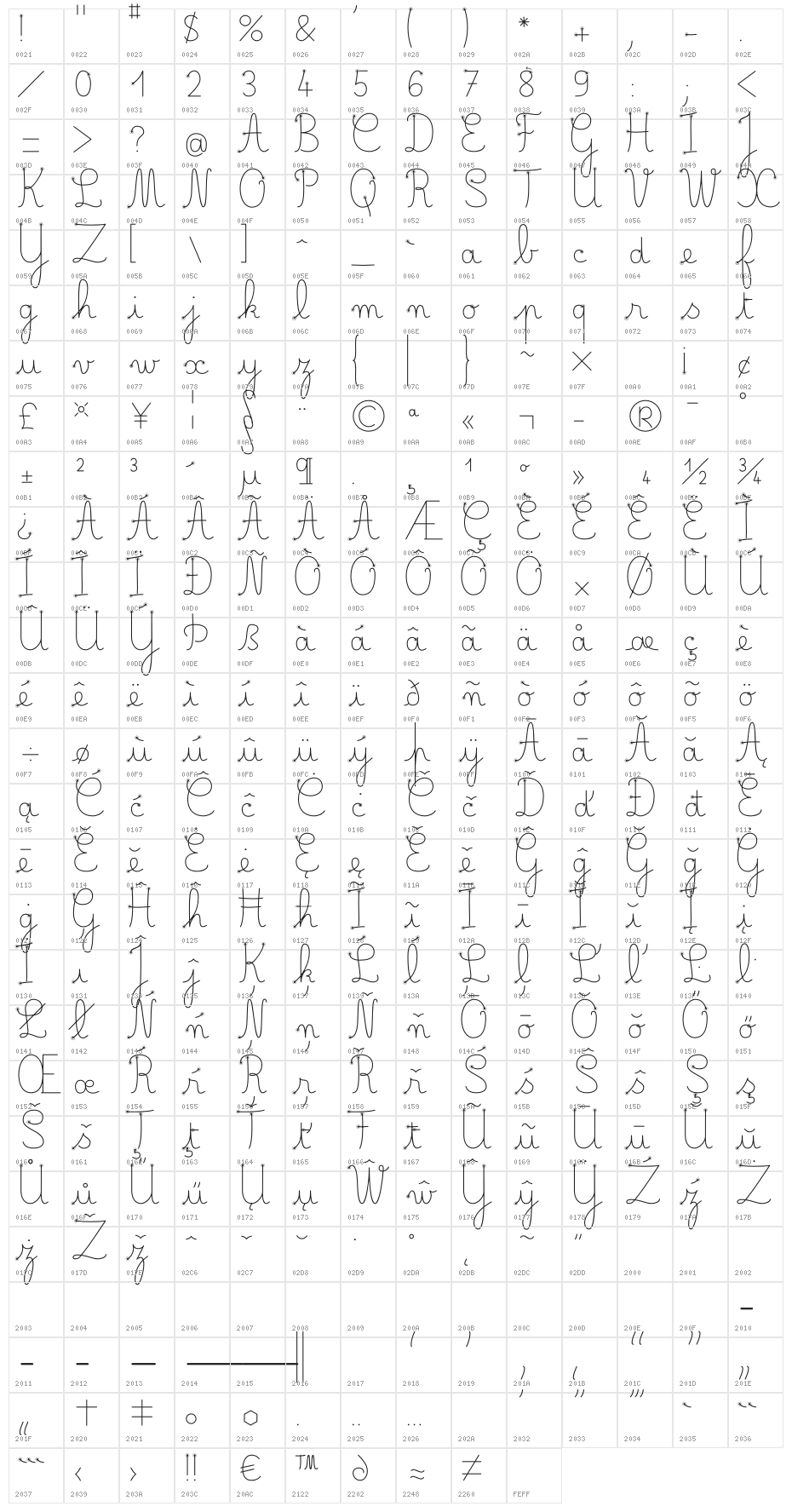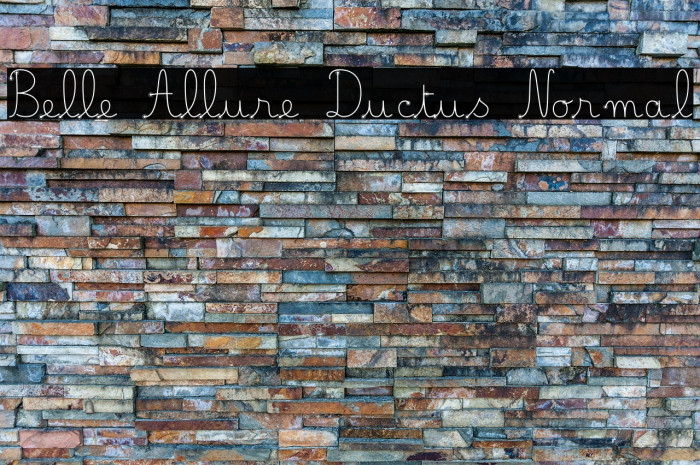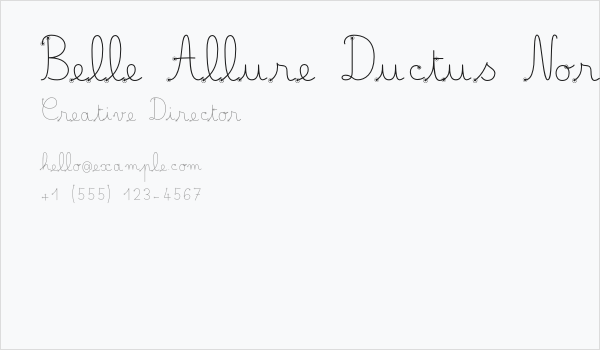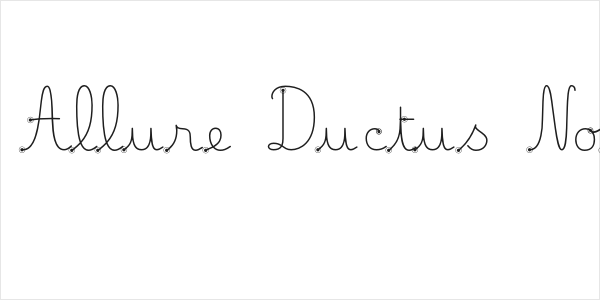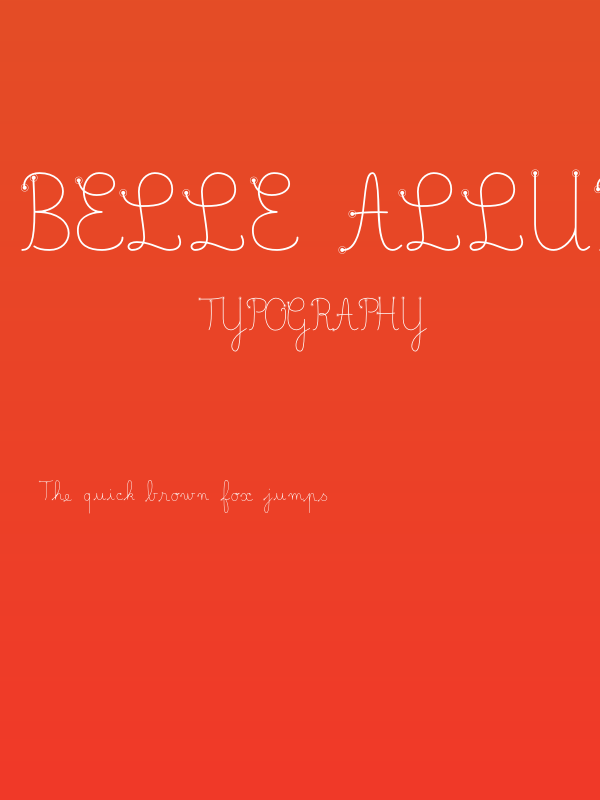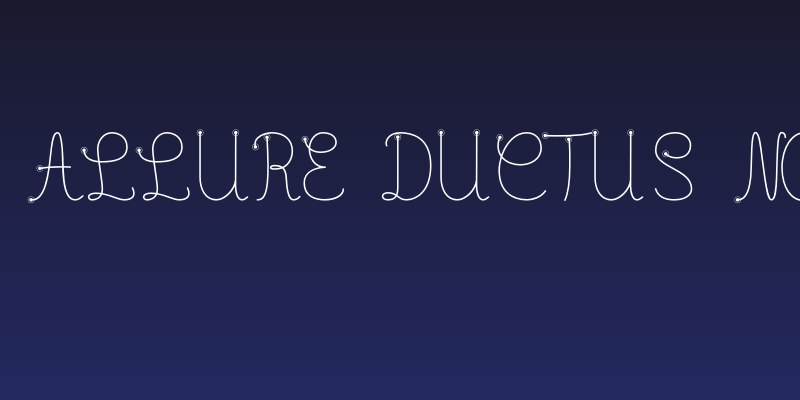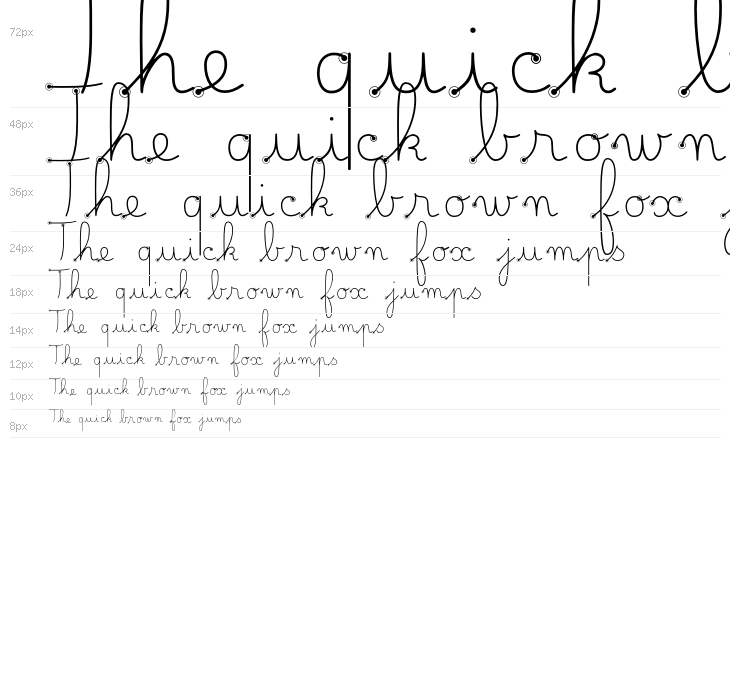
Belle Allure Ductus Normal Font
Belle Allure Ductus Normal Description
This font features a unique and whimsical design with elegant, flowing lines and decorative curls at the ends of each character. The uppercase letters are tall and slender, with a consistent stroke width that gives them a refined appearance. Lowercase letters maintain the same decorative style, with smooth curves and loops that add a playful touch. The numerals are distinct and easy to read, incorporating the same ornamental elements. Special characters are designed with the same attention to detail, making them cohesive with the rest of the font. This font's intricate design makes it ideal for creative and artistic projects.